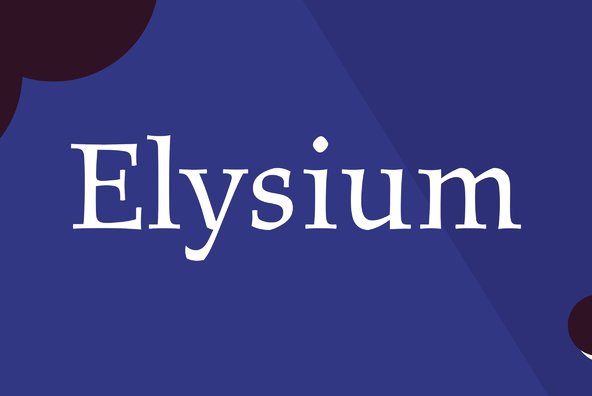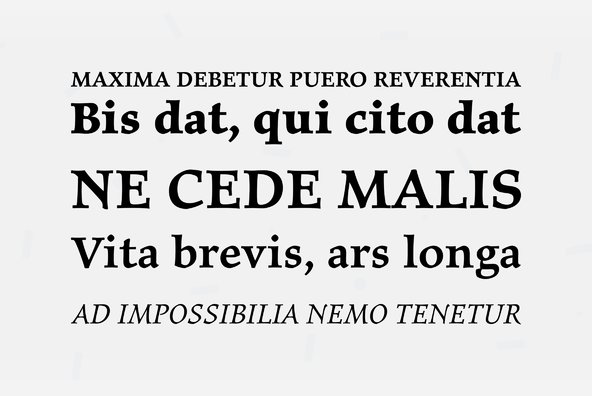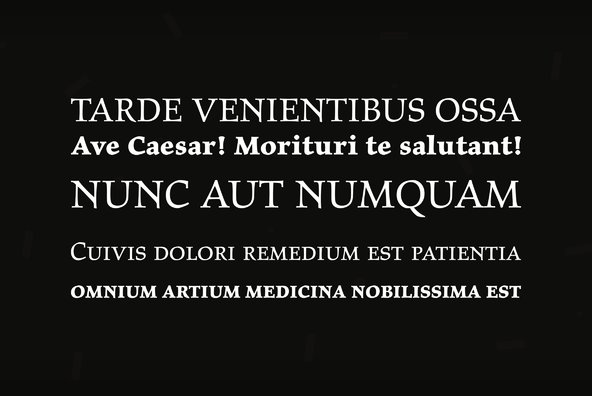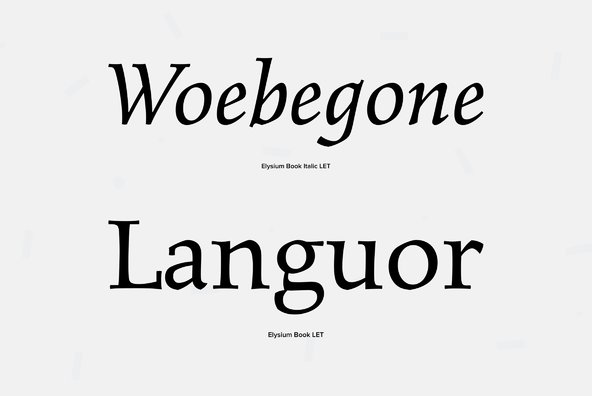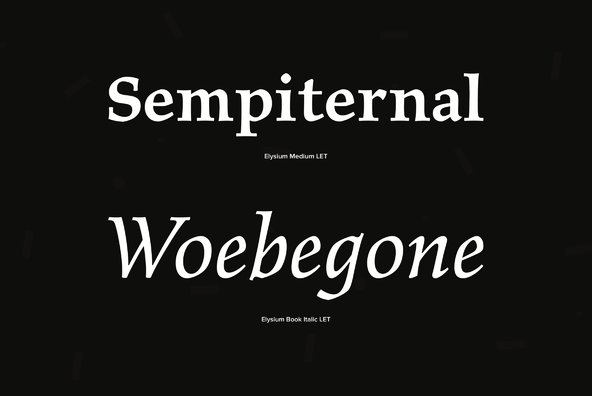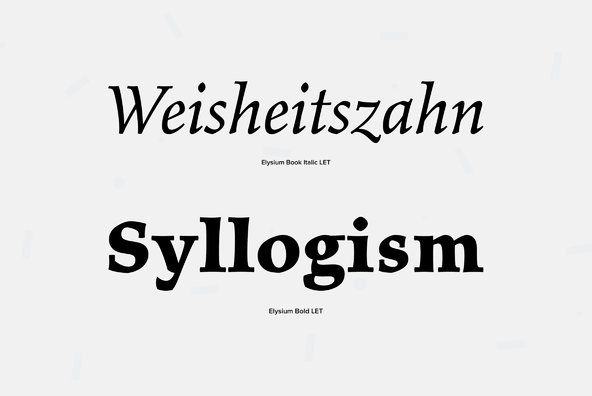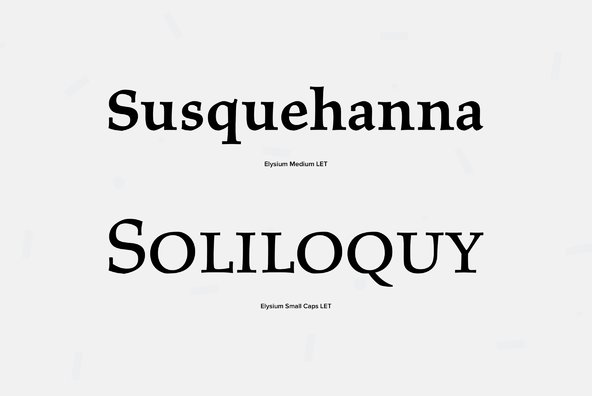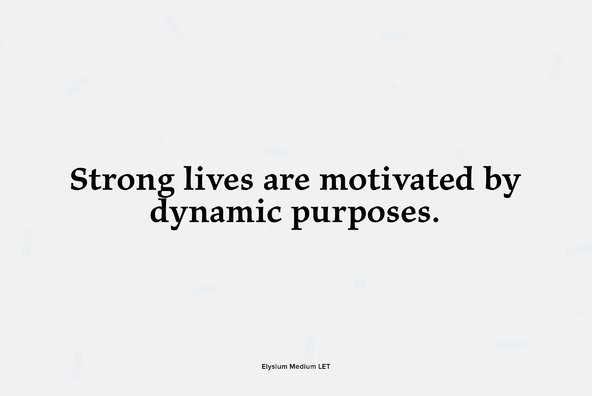
Elysium
The influence of Czechoslovakian designer Oldrich Menhart is very much in evidence in this new family designed by Michael Gills. Classified in the typographic sense as an old style roman, Elysium has a vital, refreshing quality borne out of the designer's love of calligraphy. Although Figural and Elysium both bear the hallmark of the great Czech designer, they are quite different in styles, with the latter taking on a more 'crisp' appearance. This feature, coupled with some creative and unique letterforms, has resulted in a typeface family which simply inspires reading.